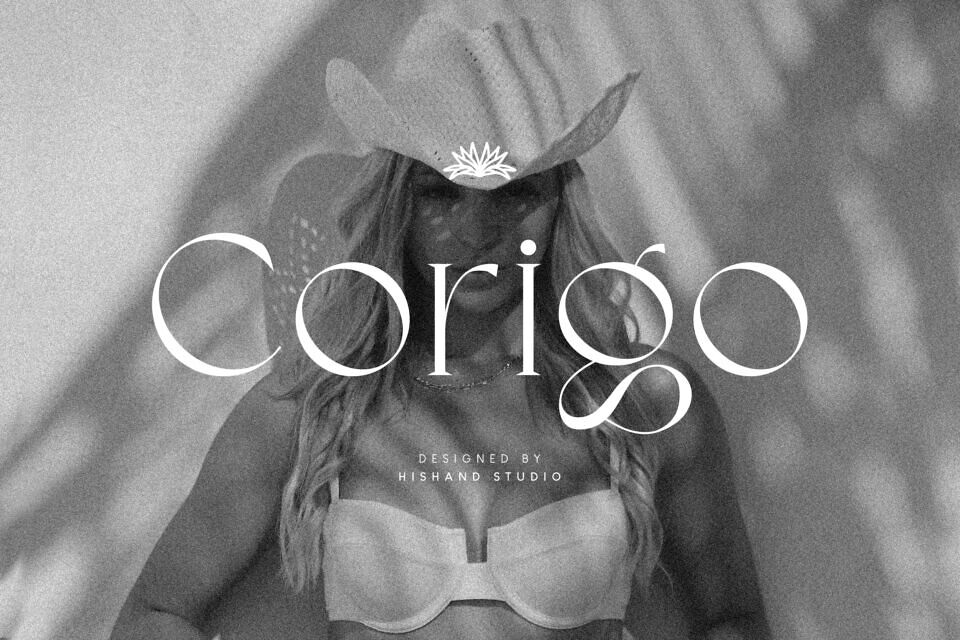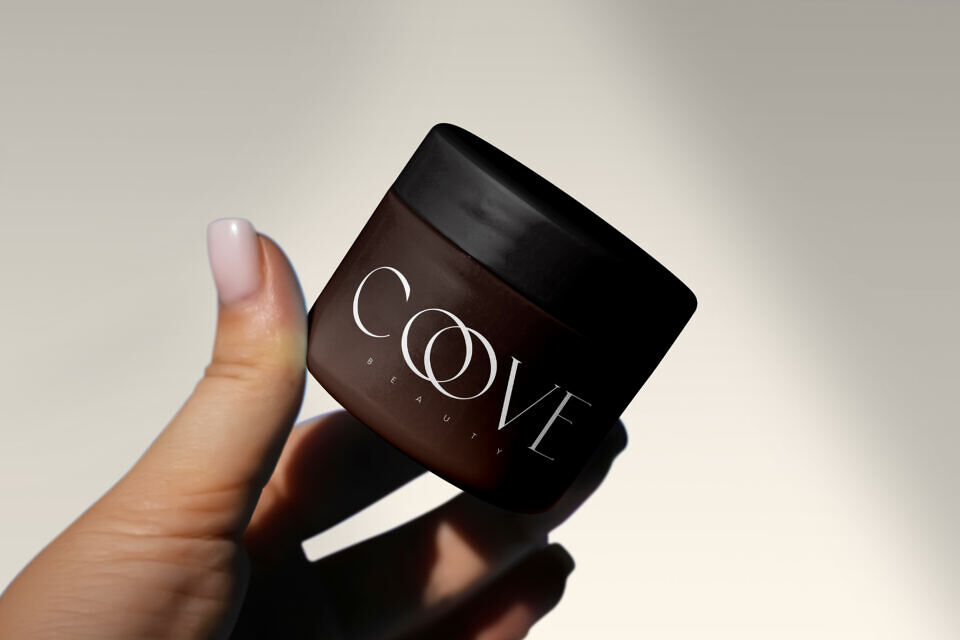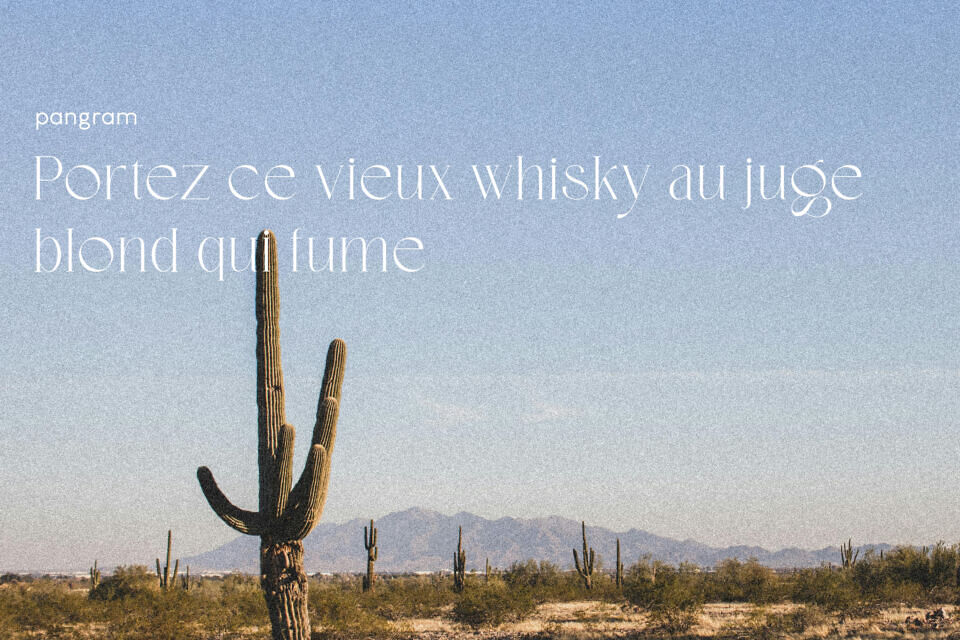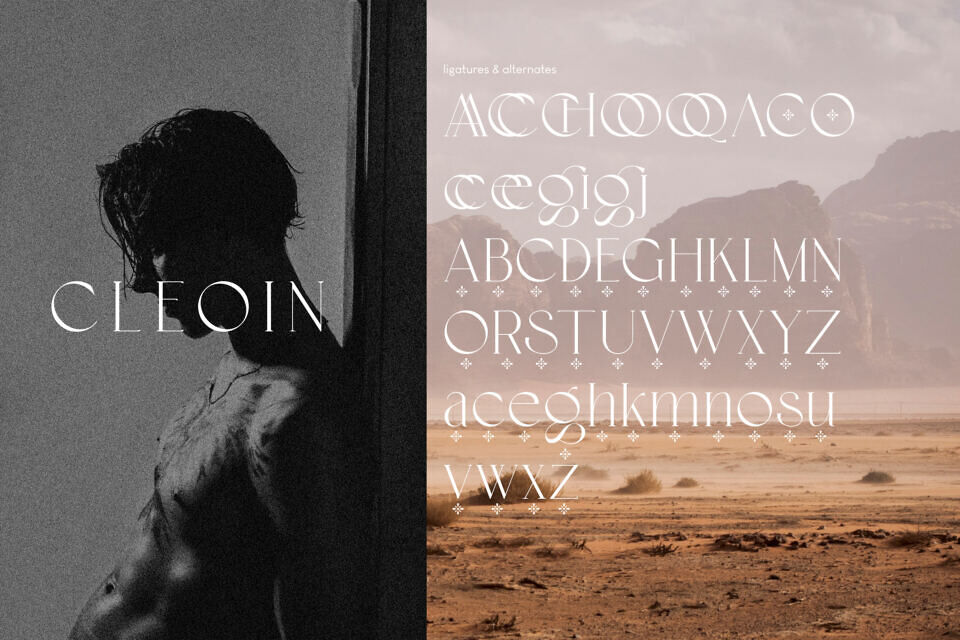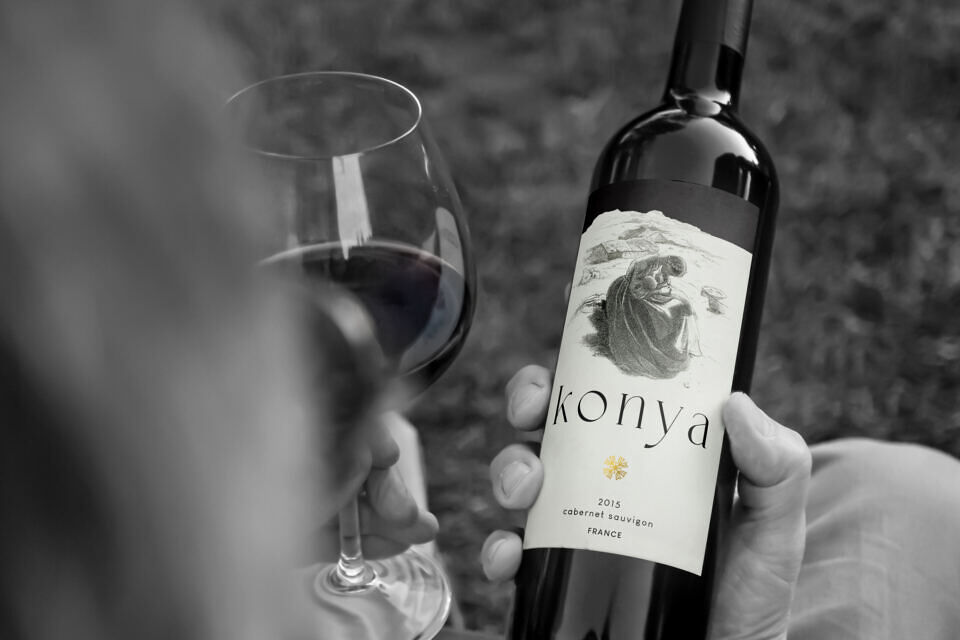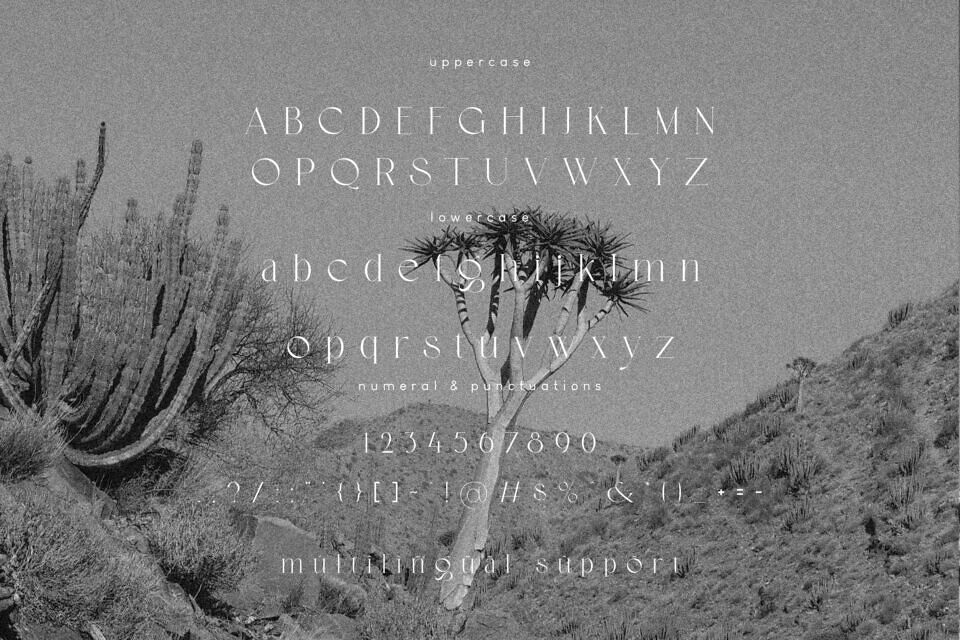
Corigo Font
Corigo Font is an elegant serif typeface crafted for sophistication, refinement, and timeless appeal. With balanced proportions and graceful details, it merges classic beauty with modern functionality.
Versatile and stylish, Corigo excels in luxury logos, editorials, wedding invitations, packaging, and digital media. Its refined strokes ensure readability while maintaining elegance, making it ideal for branding, advertising, and professional design projects.
Designed by: Hishand Studio